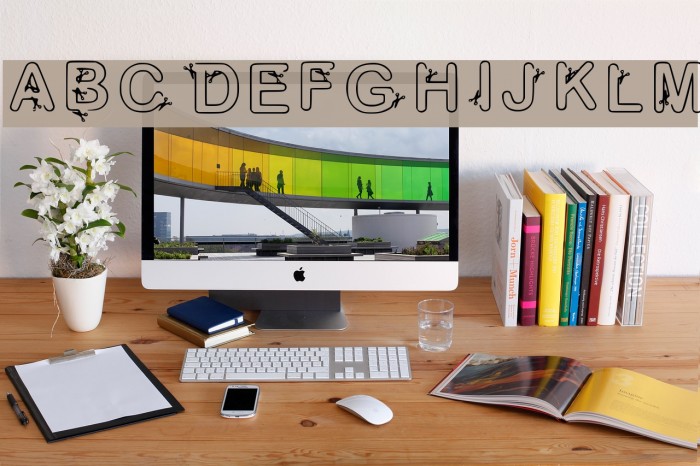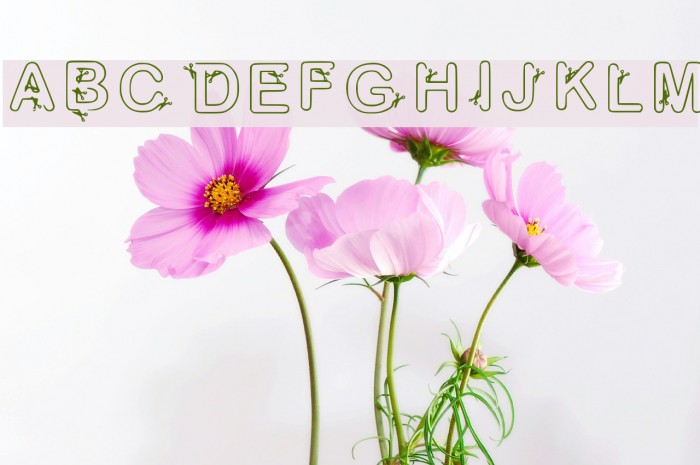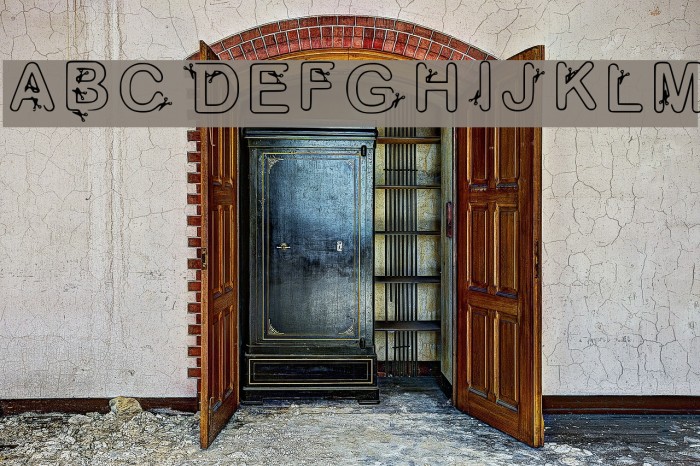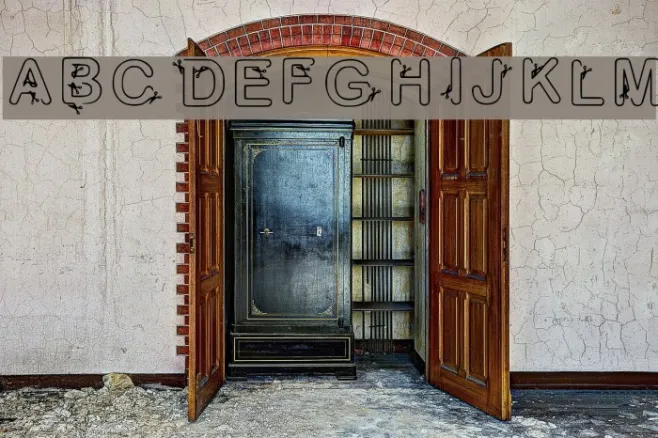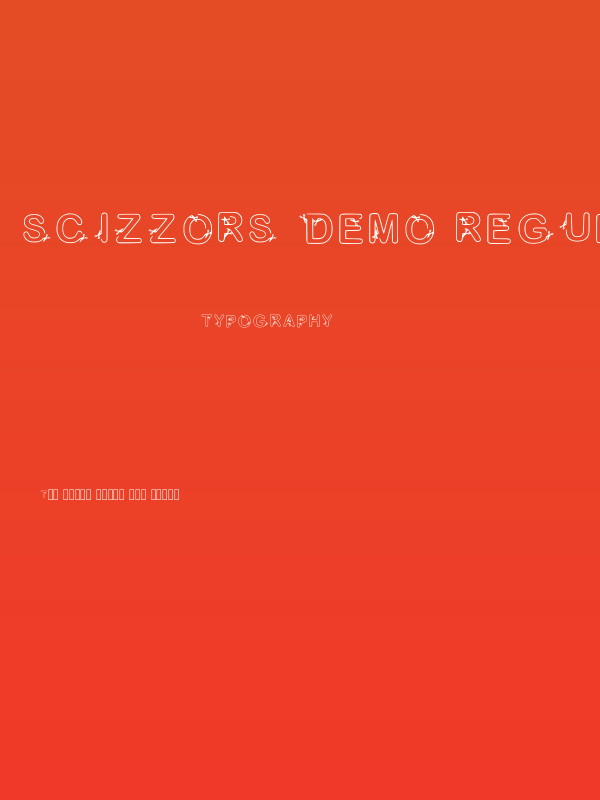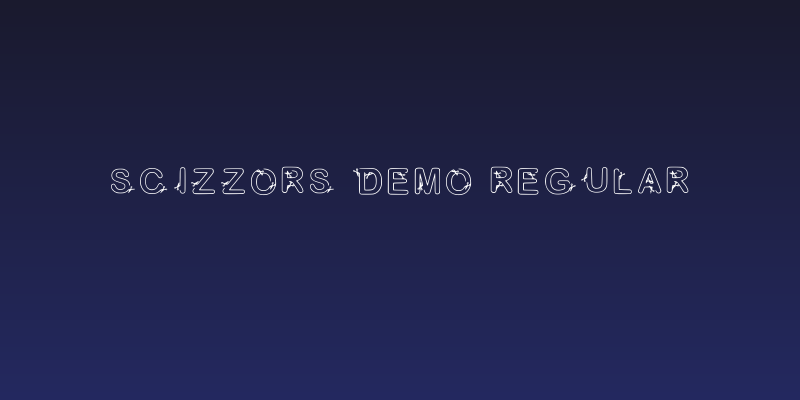
Scizzors Demo Regular Font
Scizzors Demo Regular Description
This font features a playful and creative design, incorporating scissor motifs into the structure of each letter. The uppercase letters are adorned with small scissor graphics, adding a whimsical and decorative touch. The overall appearance is bold and eye-catching, making it suitable for projects that require a fun and unique aesthetic. The font is primarily decorative, with a focus on visual appeal rather than readability. It is ideal for use in headlines, posters, or any design that benefits from a quirky and artistic style.
| Proposed Projects | Ideal for children's book covers, craft-themed posters, or playful branding materials. |